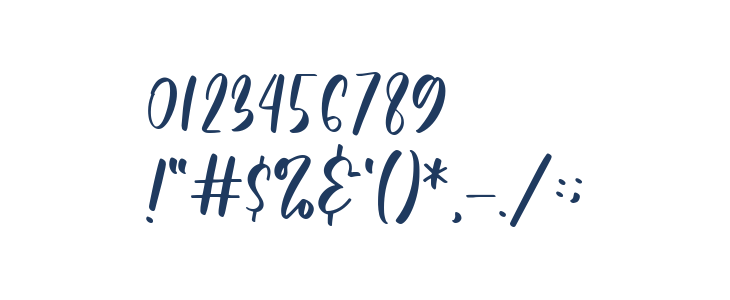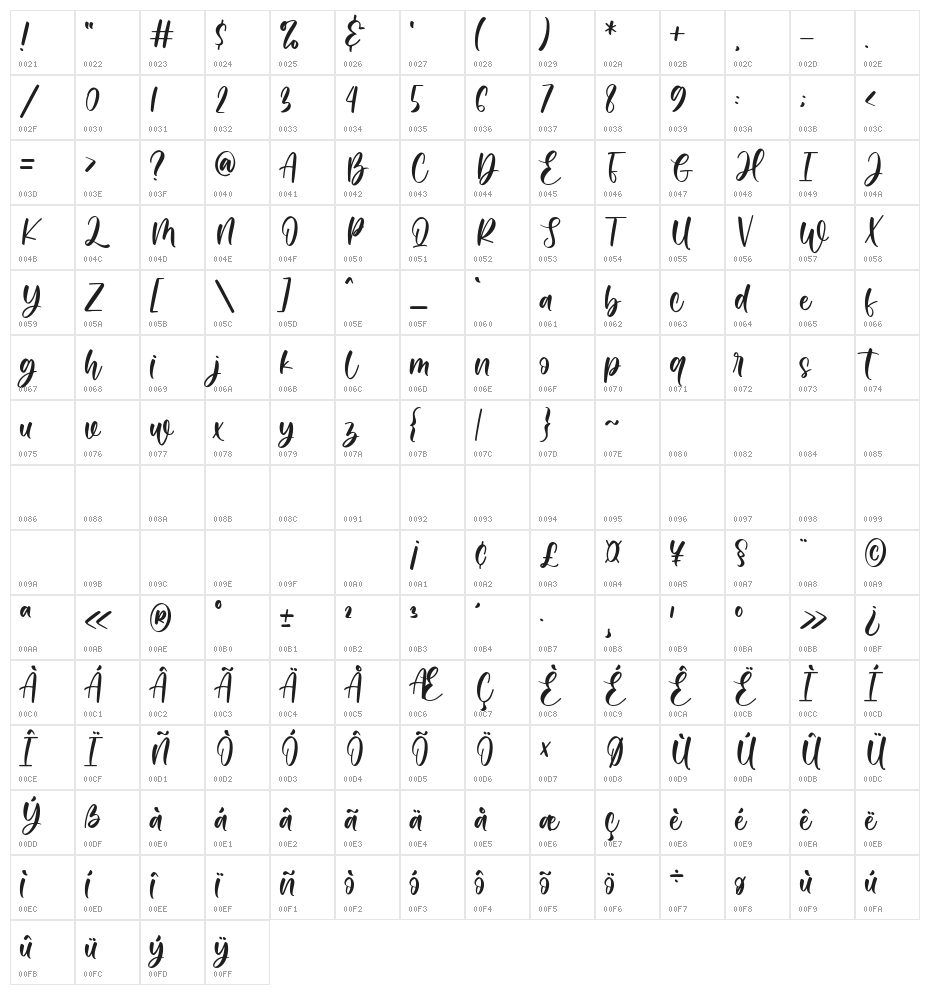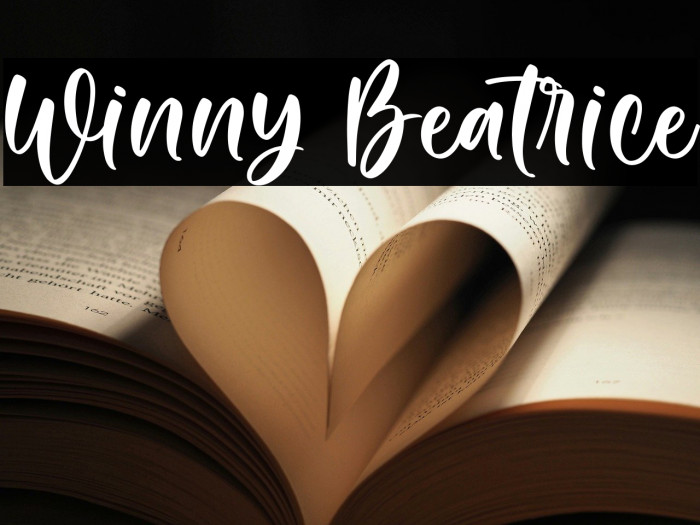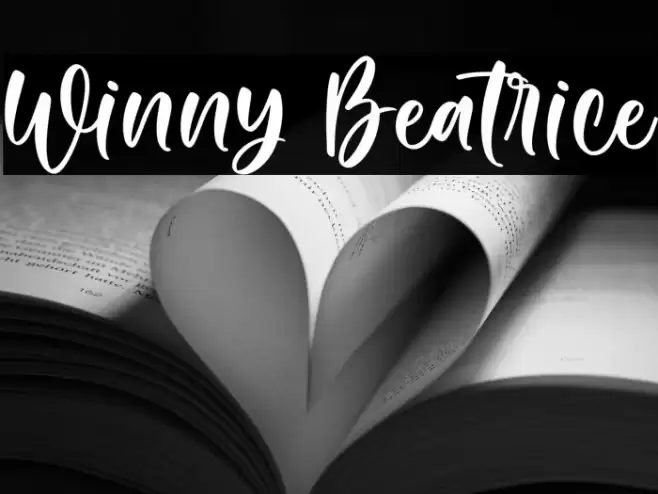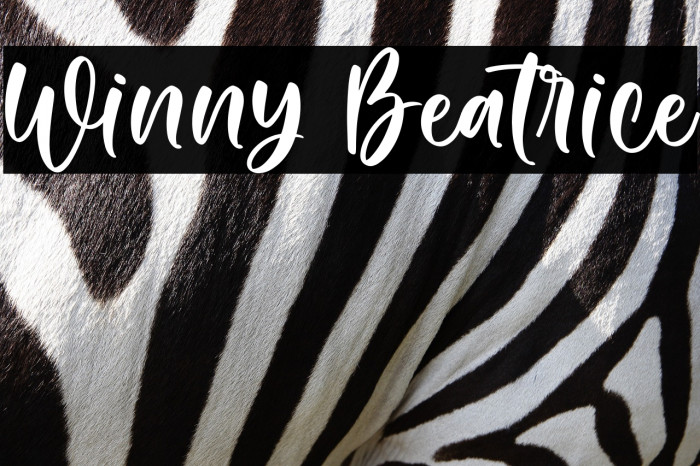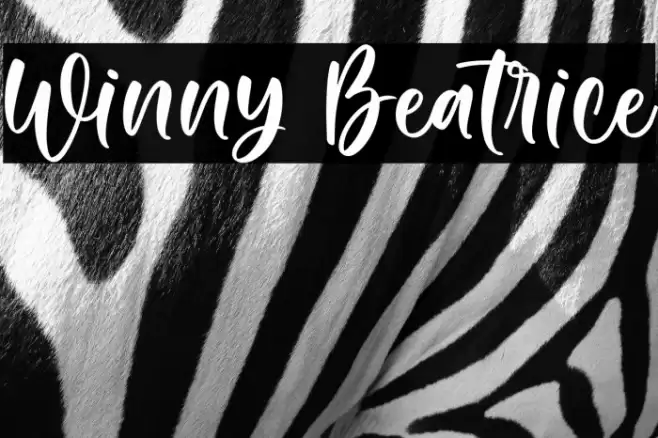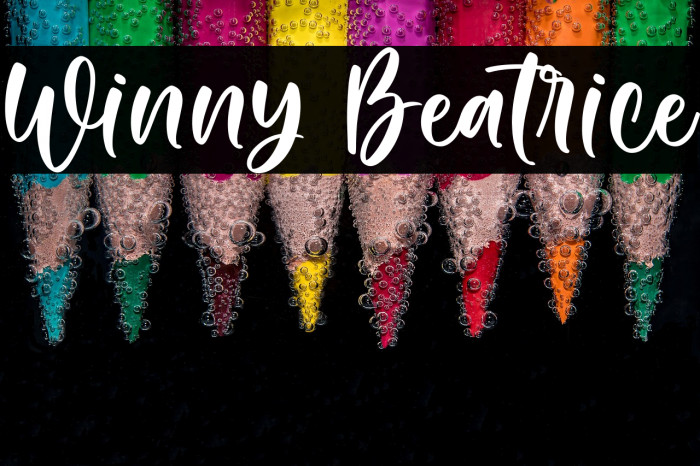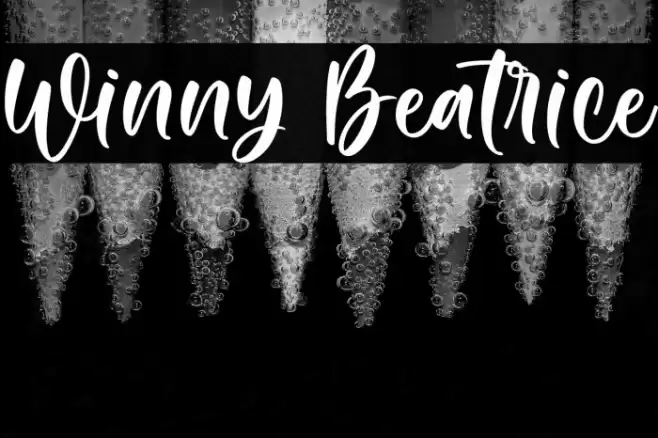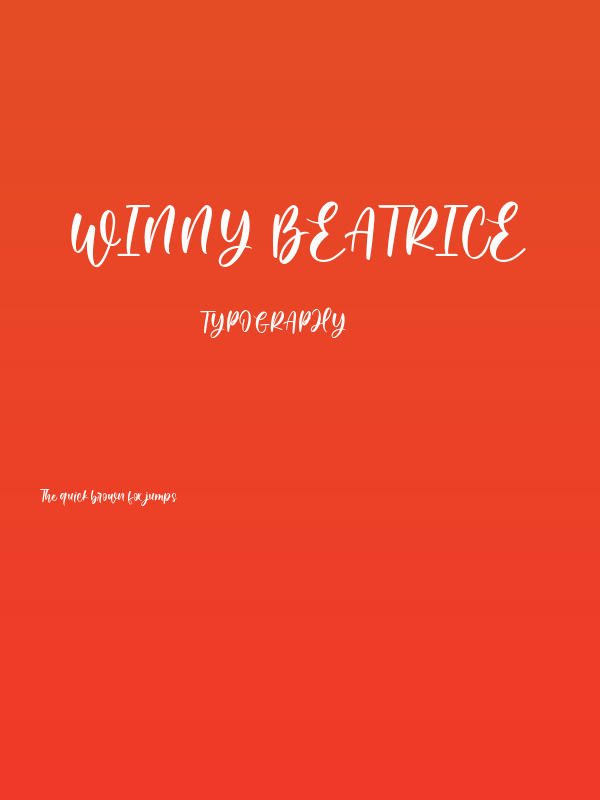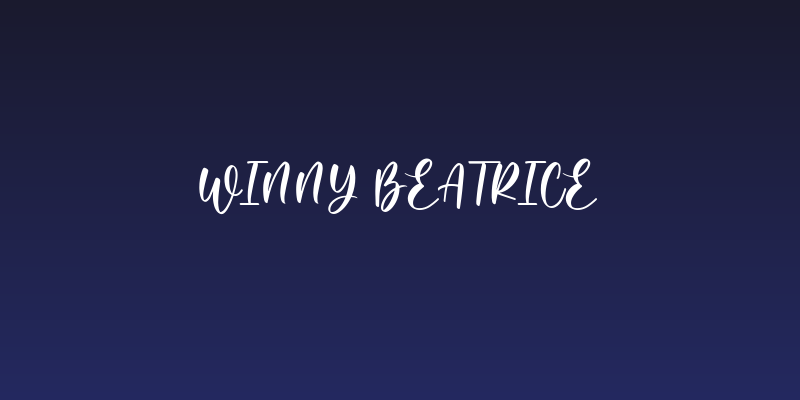
Winny Beatrice Font
Winny Beatrice Description
This font features a lively and expressive script style, characterized by its fluid, cursive strokes and playful loops. The uppercase letters are bold and dynamic, with a slight slant that adds to the overall energetic feel. The lowercase letters maintain a consistent flow, with some characters extending below the baseline, enhancing the handwritten aesthetic. The numerals are equally stylized, maintaining the same playful curves and bold presence. Special characters are creatively integrated, matching the font's overall whimsical and artistic vibe. This font is perfect for projects that require a personal touch, conveying warmth and creativity.
| Proposed Projects | Ideal for greeting cards, invitations, branding, and social media graphics. |